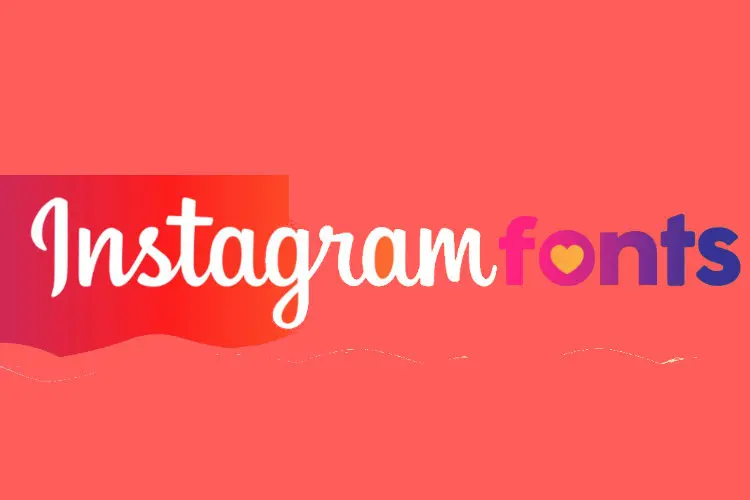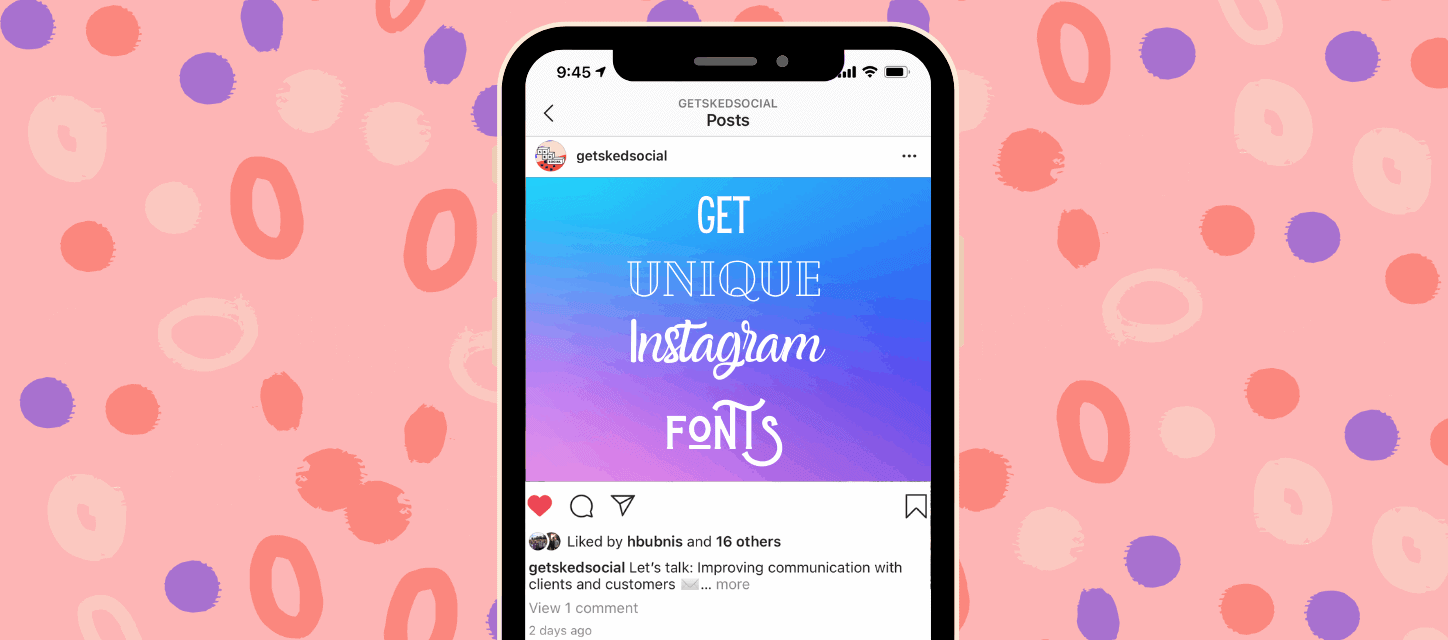
Enhance Your Instagram Game with the Best Font Generator
In today’s digital age, social media platforms have become essential tools for personal and professional branding. Among these platforms, Instagram has emerged as a powerhouse for visual storytelling and content creation. With over one billion monthly active users, it’s crucial to stand out from the crowd and make a lasting impression. One way to enhance your Instagram game is by using unique and eye-catching fonts in your captions, bio, and stories.
In this blog, we will introduce the best font generator tools that will take your Instagram game to the next level.Enhance Your Instagram Game with the Best Font Generator
The power of visual aesthetics on Instagram
• Instagram is a highly visual platform where users are constantly scrolling through their feeds in search of eye-catching content. In order to captivate your audience and stand out from the crowd, it is essential to pay attention to the visual aesthetics of your Instagram posts.
• The use of unique and eye-catching fonts can greatly enhance the visual appeal of your captions, bio, and stories. By using a font generator, you have the ability to choose from a wide variety of fonts that can help convey your brand’s personality and style.
• Fonts are a powerful tool for creating visual interest and attracting attention. They can evoke different emotions and set the tone for your content. For example, a bold and geometric font may convey a sense of modernity and innovation, while a handwritten script font can add a personal and intimate touch.
• In addition to choosing the right font, it is important to consider factors such as font size, spacing, and alignment. These elements play a crucial role in ensuring readability and overall visual balance. Experimenting with different font combinations and layouts can help you find the perfect style that aligns with your brand’s identity.
• Moreover, the use of fonts can help create a cohesive and consistent visual brand across all your Instagram posts. Consistency in fonts and visual elements not only enhances the overall aesthetics of your profile but also helps in building brand recognition and recall.
• It is worth noting that while fonts can enhance the visual appeal of your Instagram posts, they should not overshadow the content itself. The content you share, whether it be an inspiring quote, a product announcement, or a behind-the-scenes glimpse, should always remain the focal point. The font you choose should complement and support the content, rather than distract from it.
The power of visual aesthetics on InstagramIn conclusion, the power of visual aesthetics on Instagram cannot be underestimated. By utilizing the best font generator tools, you can elevate your Instagram game by creating visually stunning and engaging content. Remember to choose fonts that align with your brand’s personality, maintain consistency, and enhance the overall visual appeal of your profile. With the right combination of fonts and captivating content, you can leave a lasting impression on your audience and stand out in the saturated world of Instagram.
Importance of font selection in creating a cohesive brand identity
Choosing the right font for your brand is an essential aspect of creating a cohesive brand identity on Instagram. Fonts play a significant role in conveying the personality and style of your brand and can greatly contribute to the overall visual appeal of your profile.
1. Reflecting your brand’s personality:
Just like colors, fonts have the power to evoke emotions and convey a particular tone or style. Whether your brand is modern, playful, elegant, or minimalistic, selecting the appropriate font can help reinforce and reflect the personality of your brand. For example, a clean and minimalist font may be suitable for a tech company, while a bold and decorative font may be more fitting for a creative and artistic brand.
2. Maintaining consistency:
Consistency is key when establishing a strong brand identity. Using a consistent set of fonts across all your Instagram posts creates a cohesive look and helps build recognition and recall among your audience. It is important to choose a primary font that will be used consistently for your brand’s name, logo, and important headlines. Additionally, selecting a secondary font or two for captions and other text can add variety while maintaining a cohesive aesthetic.
3. Enhancing readability:
While creativity is important, it is equally crucial to ensure that your chosen fonts are legible and easy to read. The readability of your text is paramount in delivering your message effectively to your audience. Consider factors such as font size, letter spacing, and line height to optimize readability. Avoid using overly decorative or complex fonts for large blocks of text as it can make reading difficult and deter engagement.
Conclusion
In conclusion, font customization is a powerful tool that can enhance engagement and create a unique Instagram presence. By reflecting your brand’s personality, standing out with unique fonts, mixing and matching fonts, highlighting key messages, considering font effects, using fonts for calls to action, and testing font legibility, you can elevate your Instagram game and captivate your audience.